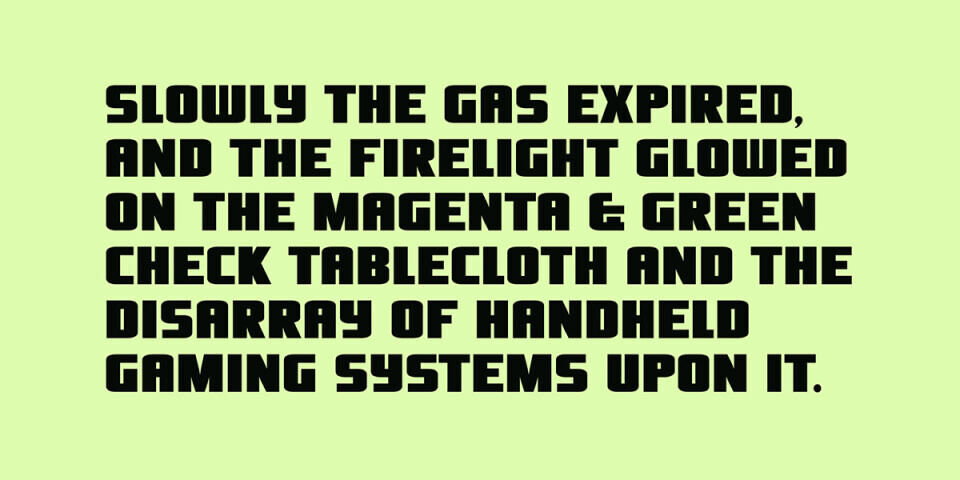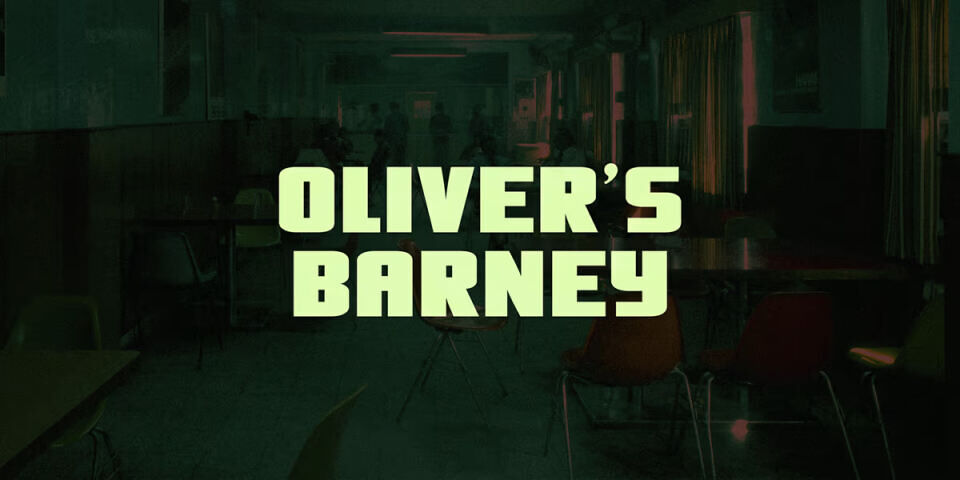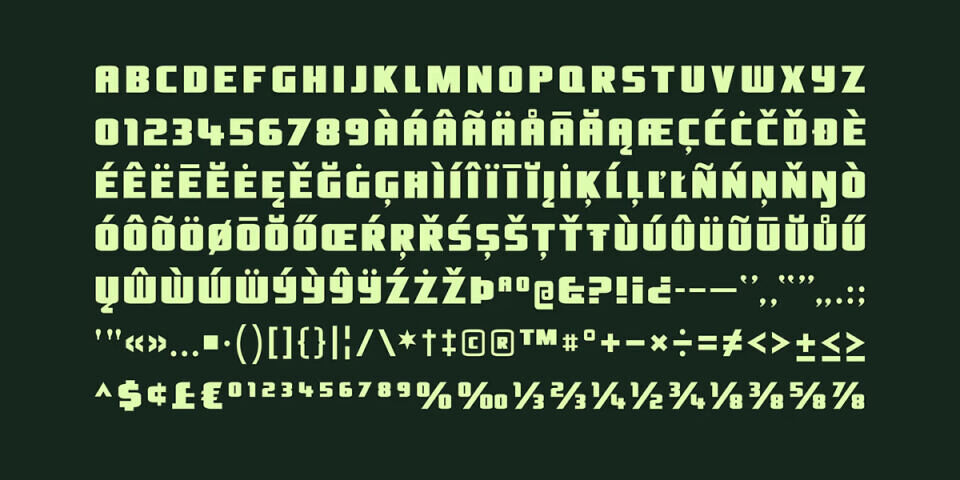
Oliver’s Barney is a free vintage gaspipe signage font. This simple design is representative of hand lettered industrial styles from the early twentieth century.